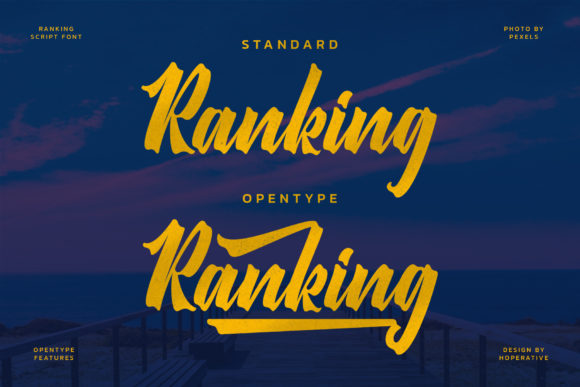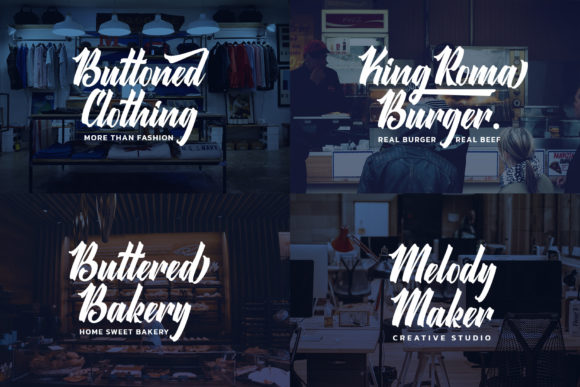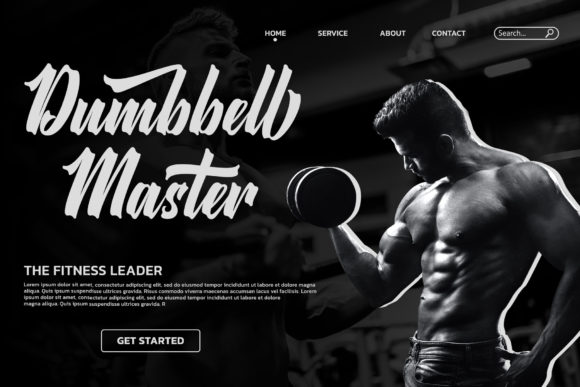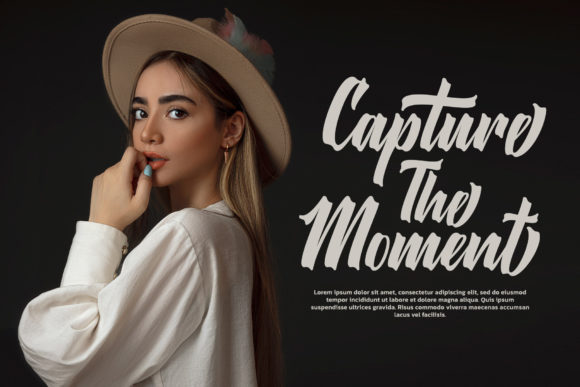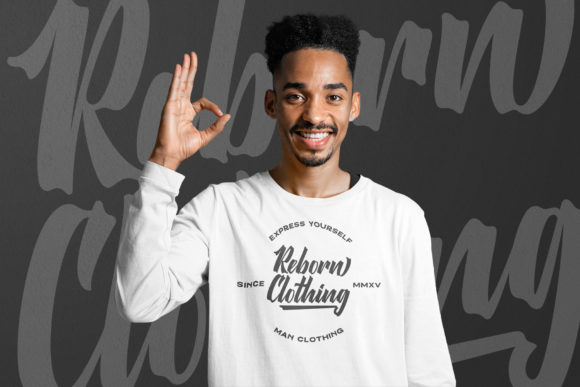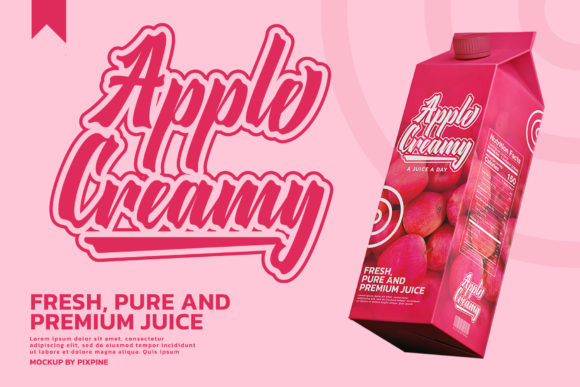
Introduction to Ranking Font Font
Fonts play a crucial role in design, and the Ranking Font font is a typeface that brings both character and versatility to any project. Whether you’re working on a branding project, a website, or a print design, the Ranking Font font offers a unique style that can elevate your work.
Ranking is a gorgeous and retro-styled script font crafted to add tons of stylish character to your designs.
Key Features of Ranking Font Font
Why Choose Ranking Font Font?
The Ranking Font font is more than just a typeface – it’s a design tool that helps you communicate your message with style and clarity. Its unique character set and versatile design make it suitable for a wide range of applications, from elegant invitations to bold headlines.
With its carefully crafted letterforms and balanced proportions, the Ranking Font font ensures readability and visual appeal across all mediums.
What makes Ranking Font font special?
The Ranking Font font stands out with its unique design, exceptional readability, and versatility across various design applications.